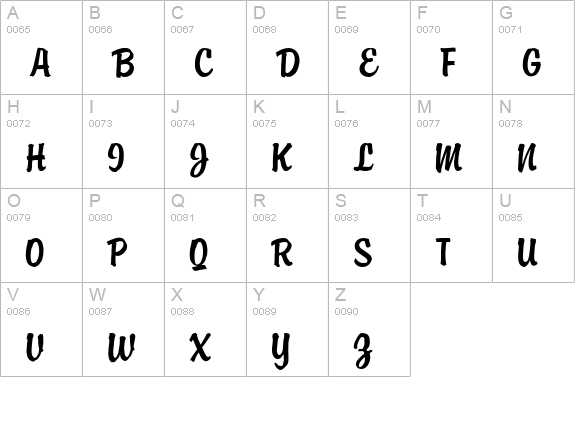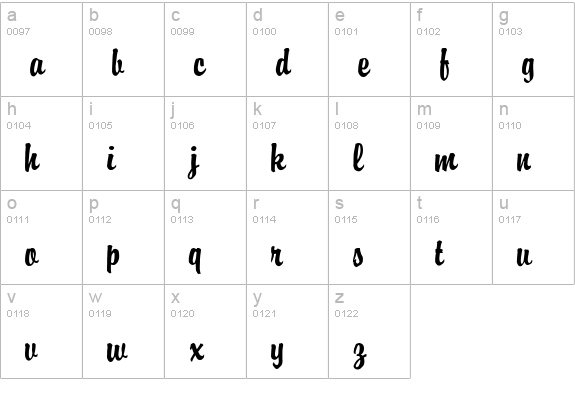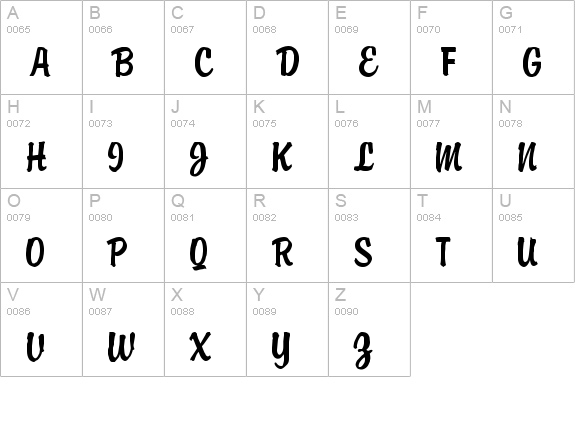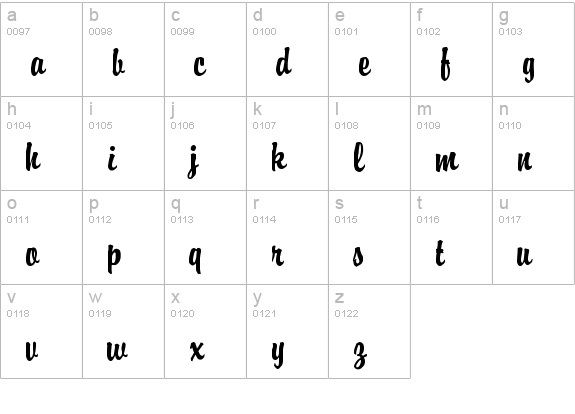
ATBrophyScript Font Details
ATBrophyScript font is a beautifully crafted script font that exudes elegance and sophistication. With its flowing curves and graceful strokes, this font is perfect for adding a touch of class to any design project. Whether you're creating wedding invitations, branding materials, or social media graphics, ATBrophyScript is sure to make a statement. What makes ATBrophyScript even more appealing is that it is completely free to download at FontsMarket.com. This means that you can easily access this stunning font without having to worry about any costs. So why wait? Download ATBrophyScript today and elevate your designs with its timeless charm and beauty.